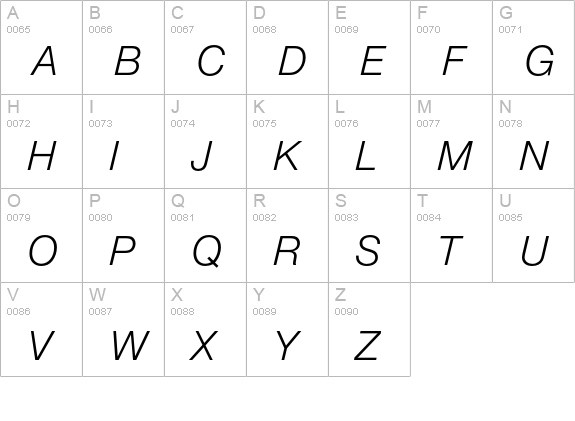
Olnova-RegularIta is a versatile and elegant font that combines traditional elements with a modern twist. Its sleek and sophisticated design makes it perfect for a wide range of projects, from branding to editorial design. The italic style adds a touch of flair and gives text a dynamic and flowing appearance. This font is available for free download at FontsMarket.com, allowing designers and creatives to easily access and utilize this stunning typeface in their projects. With its clean lines and stylish curves, Olnova-RegularIta is sure to make a statement and elevate any design it is used in. Whether you're working on a website, poster, or logo, this font is a fantastic choice for adding a touch of class and professionalism. Download Olnova-RegularIta today and enhance your creative projects with this exceptional typeface.